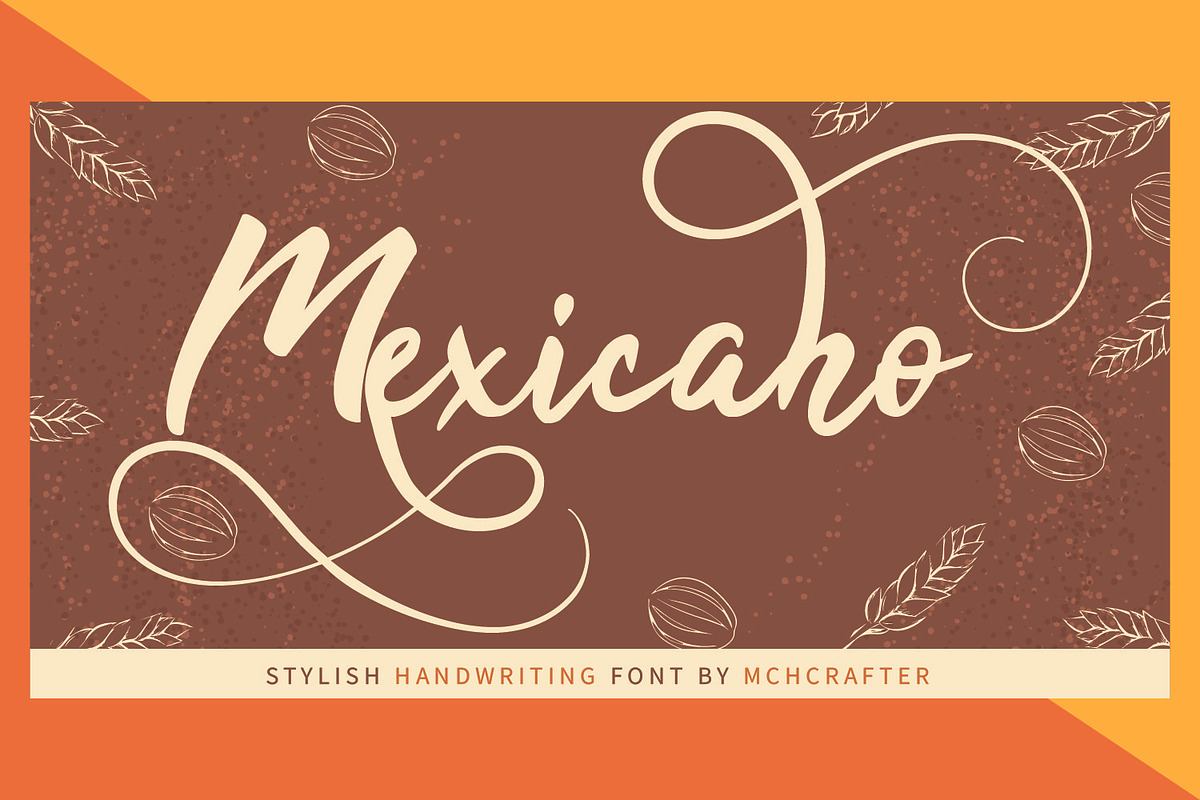
Mexicano Modern Calligraphy Typeface Free Download
Mexicano Modern Calligraphy Typeface Free Download is a stunning, fluid script font that brings an elegant, hand-lettered feel to your designs. With its graceful strokes and contemporary style, Mexicano is perfect for logos, invitations, greeting cards, and more. This versatile typeface effortlessly blends modern calligraphy with traditional charm, making it ideal for both personal and professional projects.